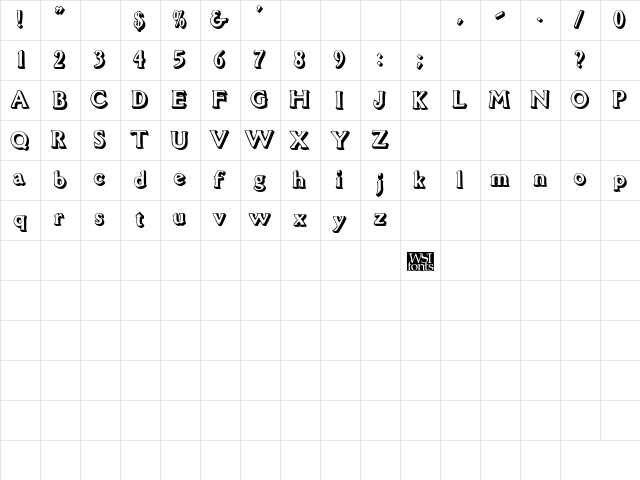
OetjenShadowDisplay Regular
Design Context for OetjenShadowDisplay Typeface
OetjenShadowDisplay is built around its visual character rather than neutral utility — its distinctive forms are designed to make an impression at display sizes.
Font Pairing: Pair with a clean neutral sans-serif for body copy to let OetjenShadowDisplay's character lead without overwhelming the composition.
Pro Tip: Use OetjenShadowDisplay exclusively at display sizes — it was designed to be seen, not read at length. Let a neutral companion handle body copy.